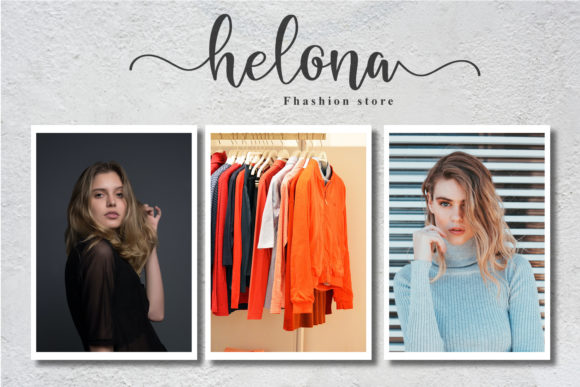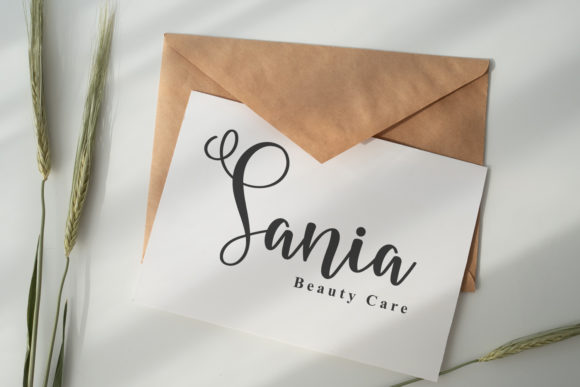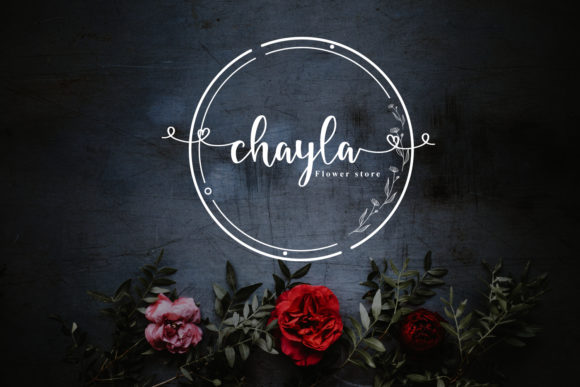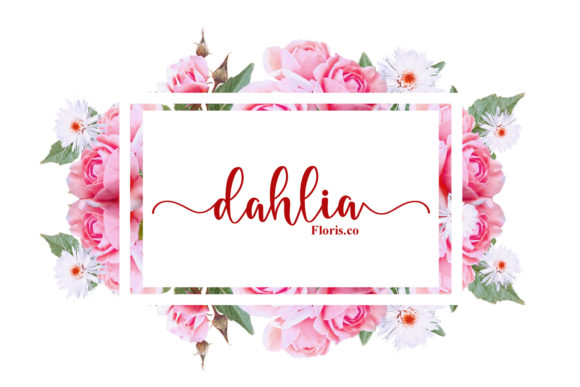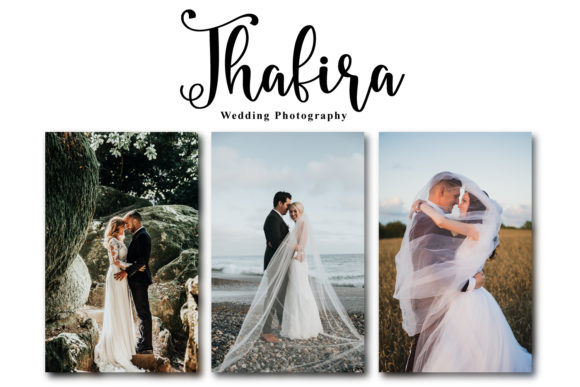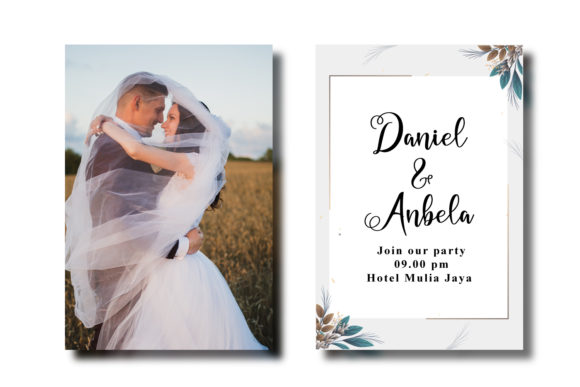
Introduction to Fadila Font
Have you ever found yourself in a creative rush, needing the perfect font to bring your design to life? Perhaps it’s a wedding invitation, a heartfelt thank you card, or a logo that screams your brand’s personality. Whatever the project, the right font can make all the difference. For designers, a versatile and high-quality font is a treasure trove, elevating even the simplest of designs to new heights.
Enter Fadila Font, a delicate and timeless handwritten font that’s about to become your new best friend. With its smooth lines, gorgeous glyphs, and stunning alternates, Fadila Font is the perfect addition to any design project. Whether you’re working on a free download or a paid creative project, this font is sure to impress. Plus, its transparent background makes it easy to work with, allowing you to focus on what really matters – bringing your design vision to life.
As a valuable resource for designers, Fadila Font offers a wealth of possibilities. From logos and business cards to greeting cards and quotes, this font is sure to add a touch of elegance and sophistication to any design. And with its PUA encoded features, accessing all the glyphs and swashes is a breeze. Get ready to fall in love with Fadila Font and take your designs to new heights!
Key Features of Fadila Font
- High-quality font design resource with a unique and elegant style, perfect for creative projects.
- Comes with a transparent background, allowing for easy customization and seamless integration with various design elements.
- Features a clean and modern design, making it an excellent choice for logos, branding materials, and other creative projects.
- Designed to be highly legible and versatile, allowing users to experiment with different font sizes, colors, and styles to achieve unique effects.
Honest Review: Fadila Font
As a designer, I’m always on the lookout for high-quality design resources that can elevate my creative projects. Recently, I had the chance to work with the Fadila Font, and I must say it’s been a pleasant experience.
- ✨ Unique and elegant design aesthetic that adds a touch of sophistication to any project.
- ✨ High-quality font files that are perfect for print and digital use.
- ✨ Transparent background, making it easy to use with any design element.
- ⚠️ Limited font weight options, which can be a bit restrictive for certain design projects.
Overall, I’m impressed with the Fadila Font’s design and quality. While it may have some limitations, it’s still a valuable resource for designers looking to add a touch of elegance to their creative projects. If you’re looking for a high-quality font to elevate your design work, the Fadila Font is definitely worth considering.
Experiment with different font sizes, colors, and styles to achieve the desired look. Use the font in combination with other design elements to create visually appealing and high-quality designs.
Common Use Cases for Fadila Font
The Fadila Font is ideal for use in logos, graphics, presentations, reports, and other creative projects that require a high-quality and visually appealing font with a transparent background. It’s also a great choice for designers who want to add a touch of elegance and sophistication to their designs.